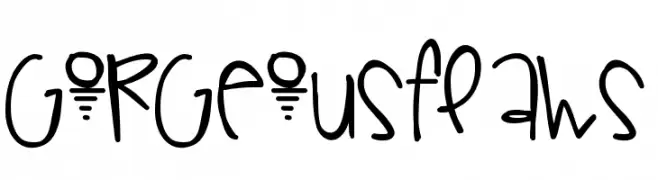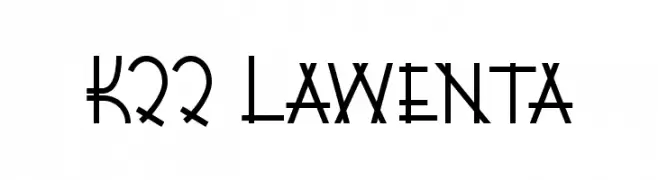
A futuristic, geometric font with bold, angular letterforms and rounded edges.
A bold, dynamic font with sharp, angular edges and a tribal-inspired style.
A classic serif font with elegant curves and a modern twist.
A classic serif font with a modern twist, featuring elegant and balanced characters.
A dynamic script font with elegant calligraphic influences and dramatic flourishes.
A cursive, italicized font with a dynamic and flowing style.
A playful, handwritten font with smooth curves and a casual style.
A bold, playful font with a retro aesthetic and rounded characters.
A bold slab serif font with a modern and dynamic style.
A bold, wide font with a modern and impactful design.
A playful and elegant swash-style font with bold, slightly condensed characters.
A playful and elegant swash font with a cursive-like quality.
An elegant, cursive font with flowing, connected characters.
A classic serif font with high contrast and elegant, sharp serifs.
A classic, elegant serif font with moderate contrast and subtle curves.
A futuristic, geometric font with bold, rounded characters and a modern appeal.
A modern, geometric sans-serif font with balanced spacing and clear characters.
A bold, edgy font with sharp, jagged edges resembling claw marks.
A whimsical and decorative font with exaggerated serifs and playful strokes.
An elegant, flowing script font with smooth, cursive strokes.
A bold, playful font with thick, irregular strokes and a hand-drawn appearance.
A playful, decorative font with a hand-drawn, bamboo-like appearance.
A graceful script font with flowing, connected strokes and elegant flourishes.